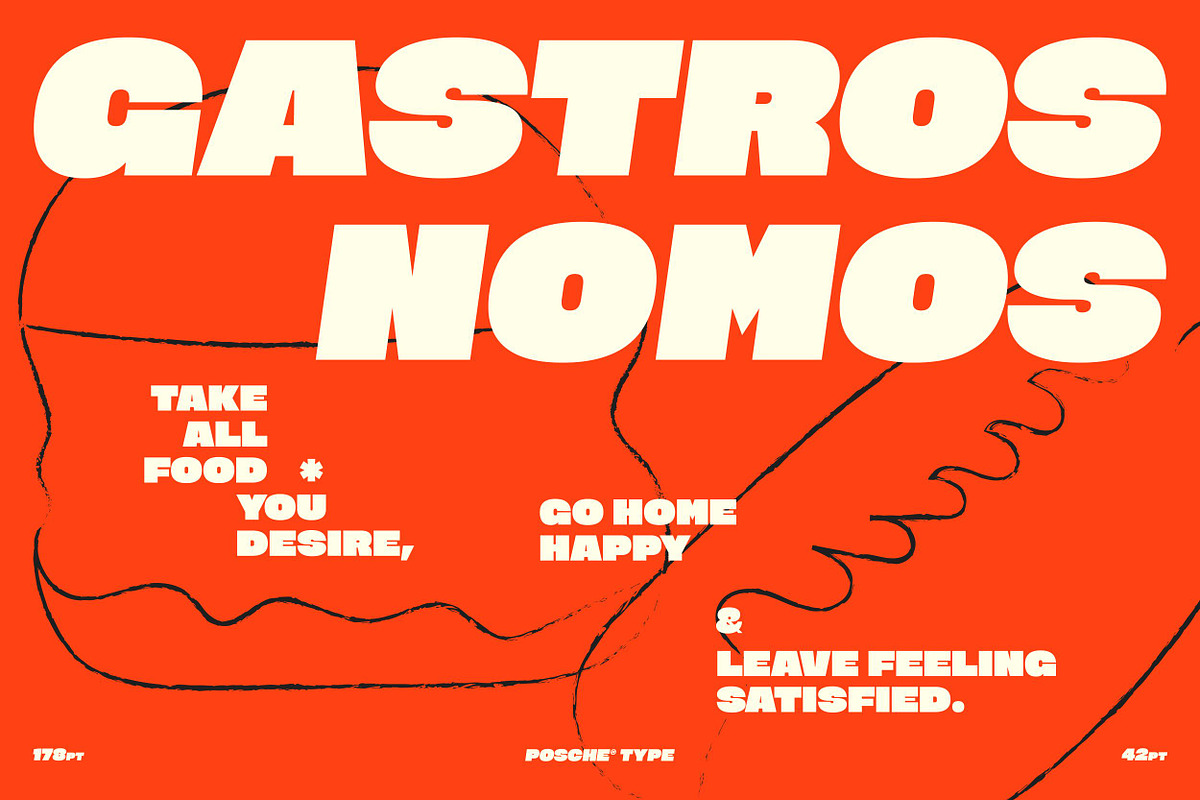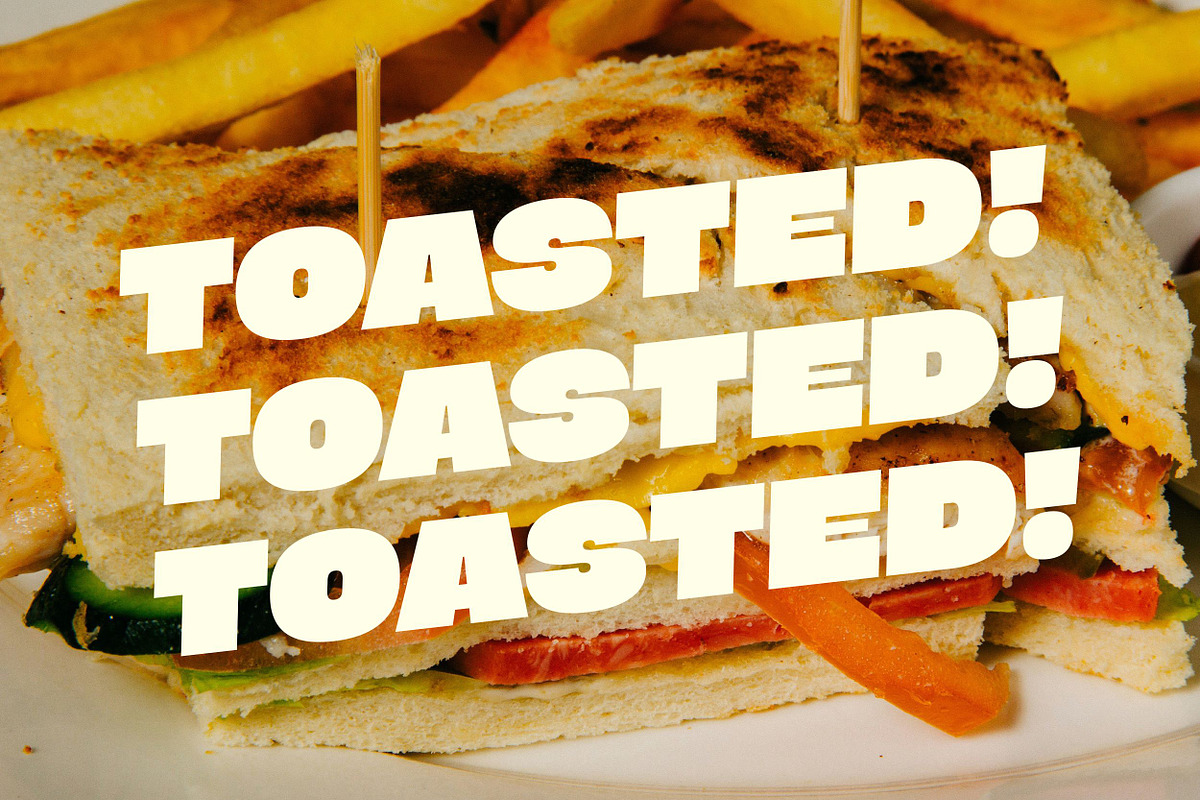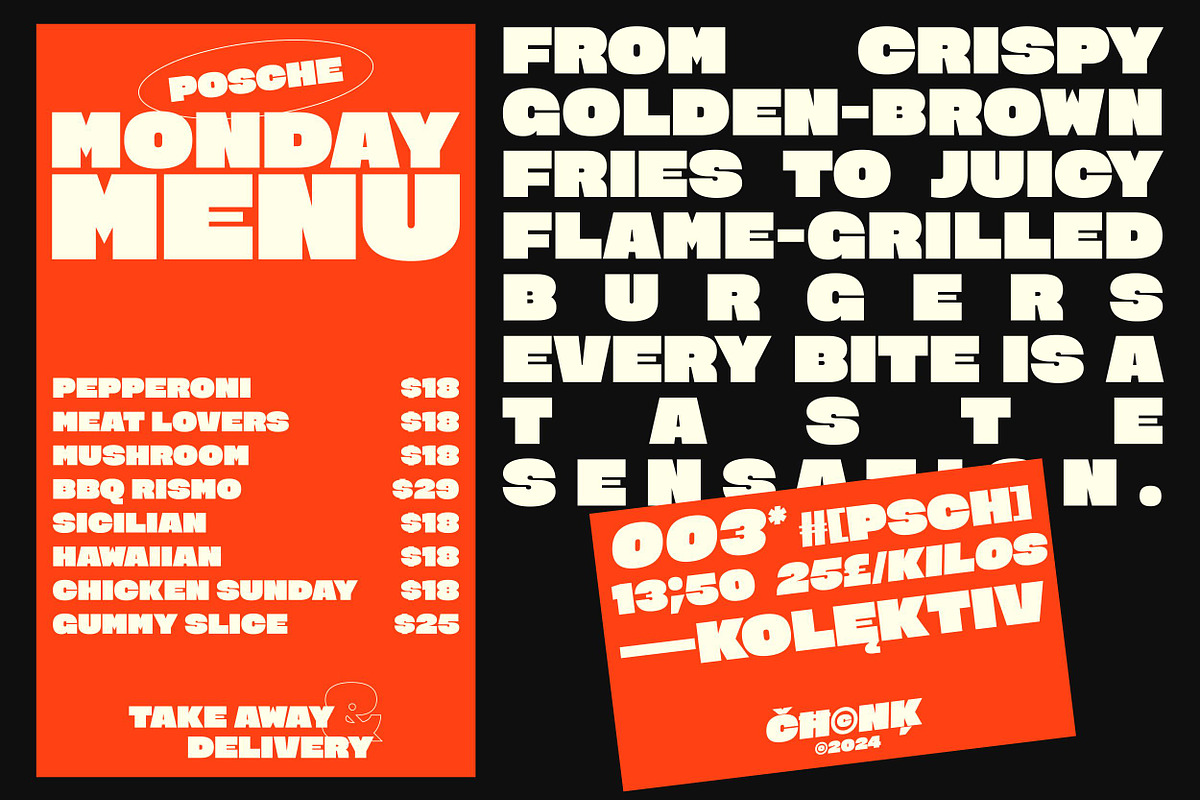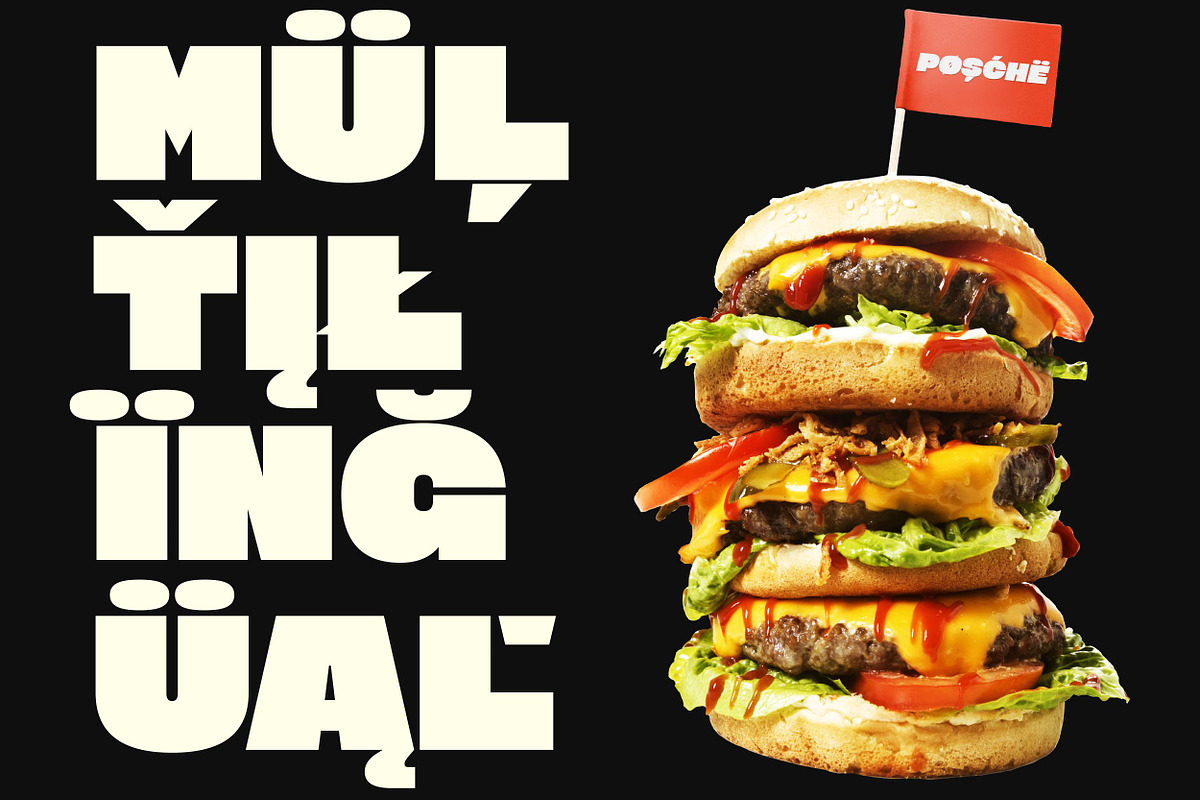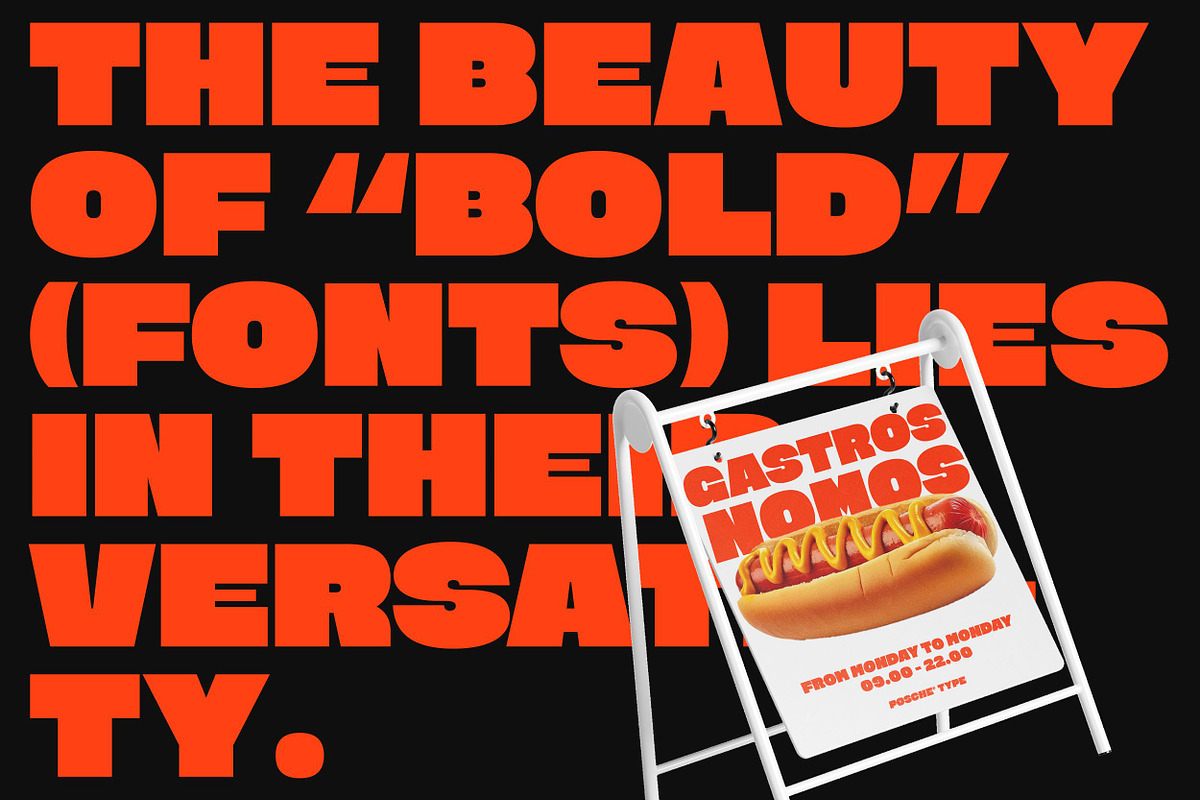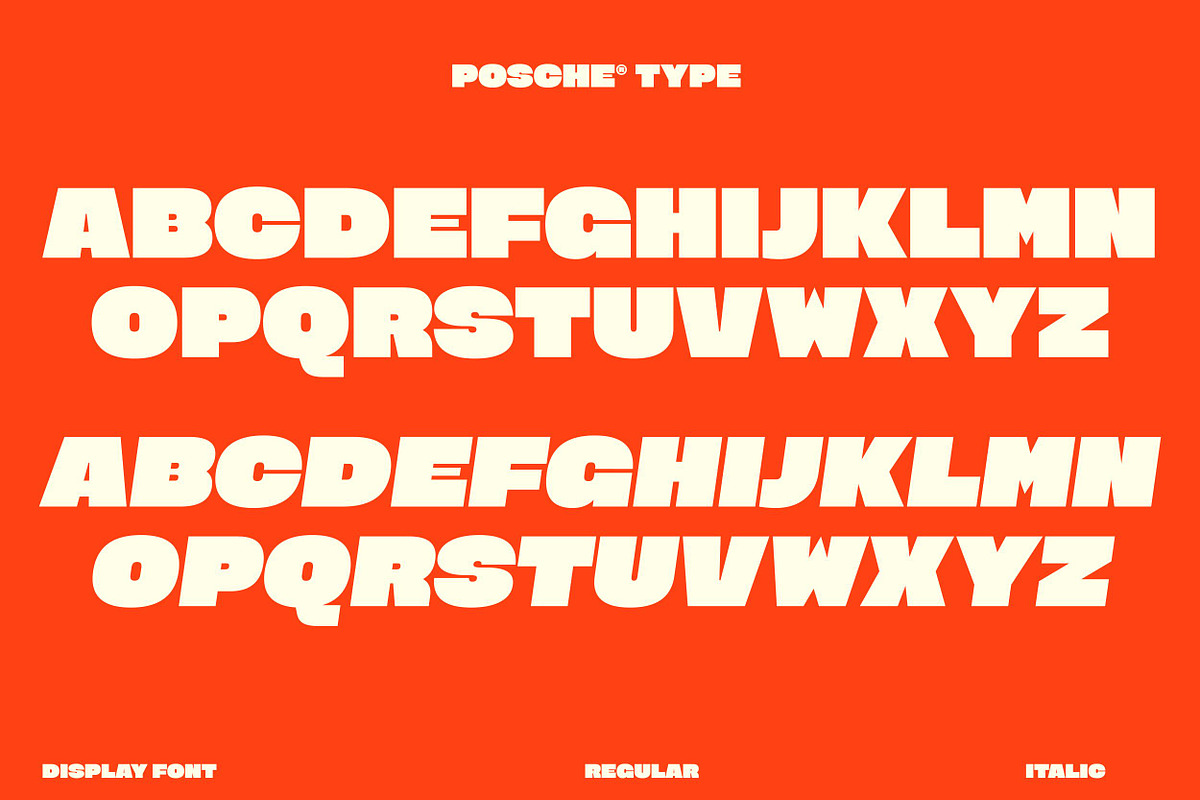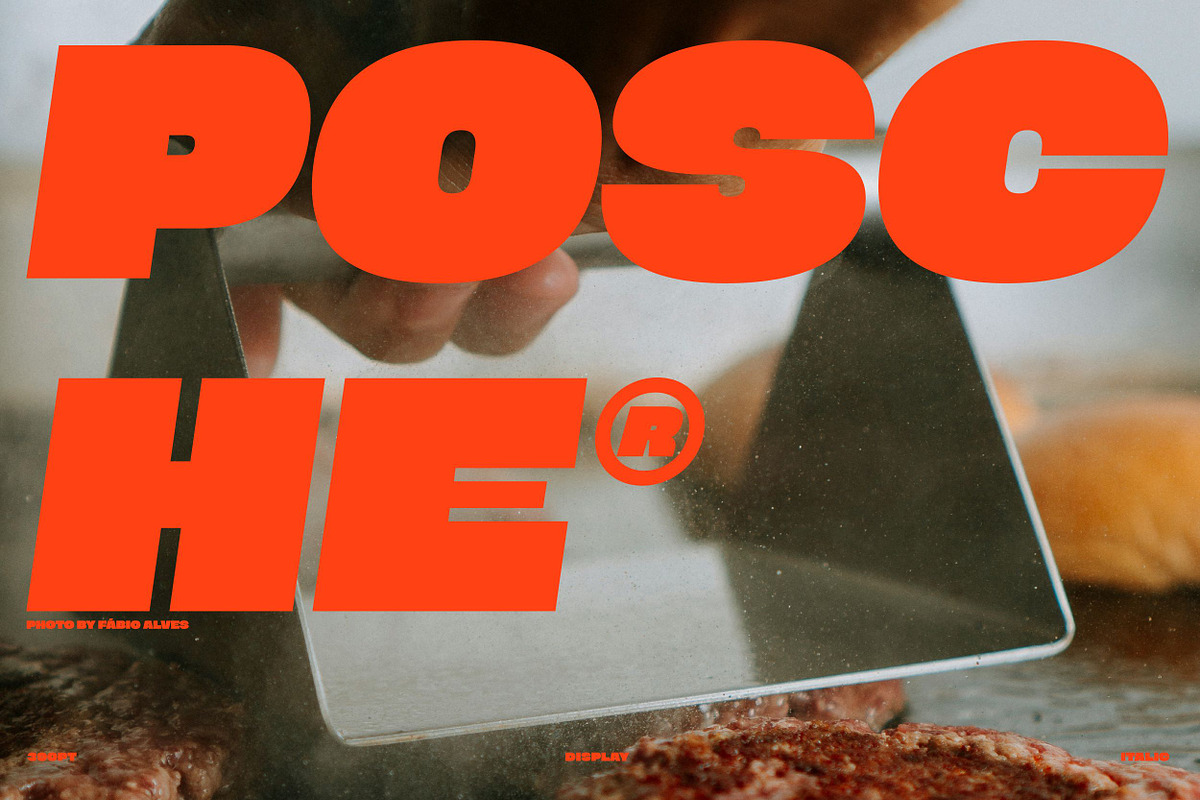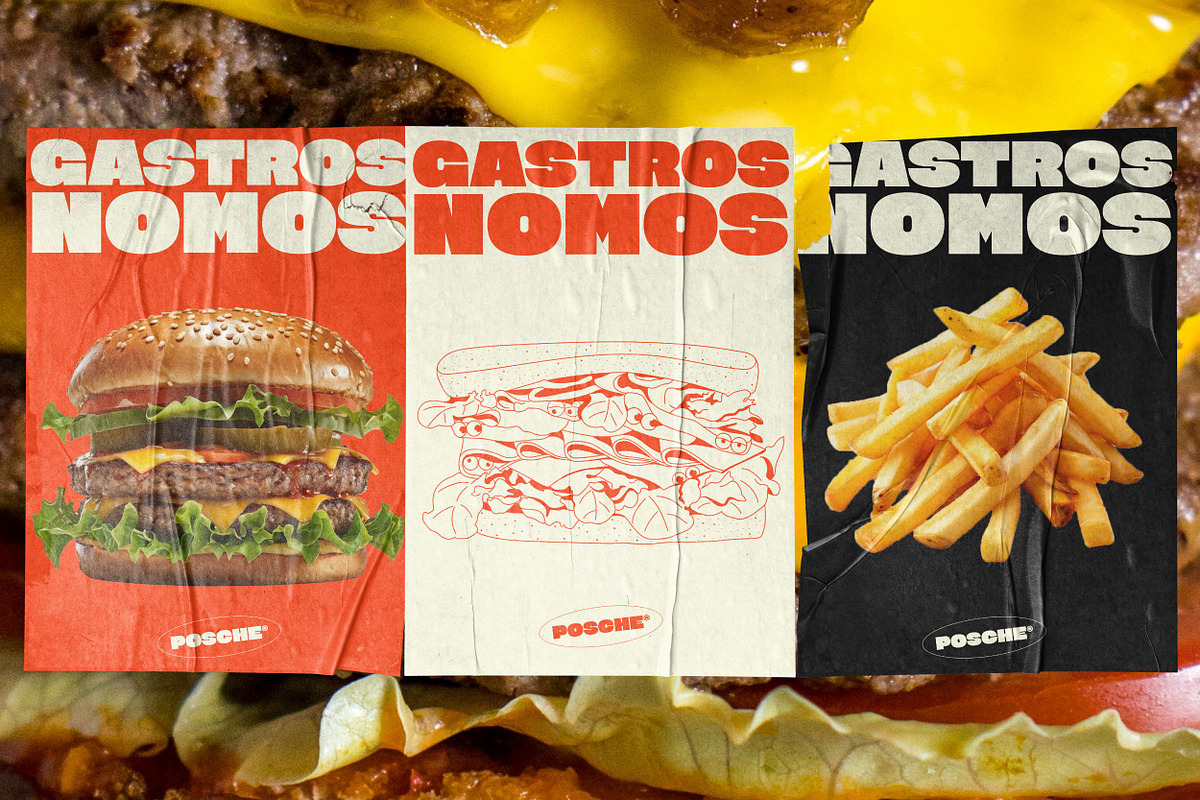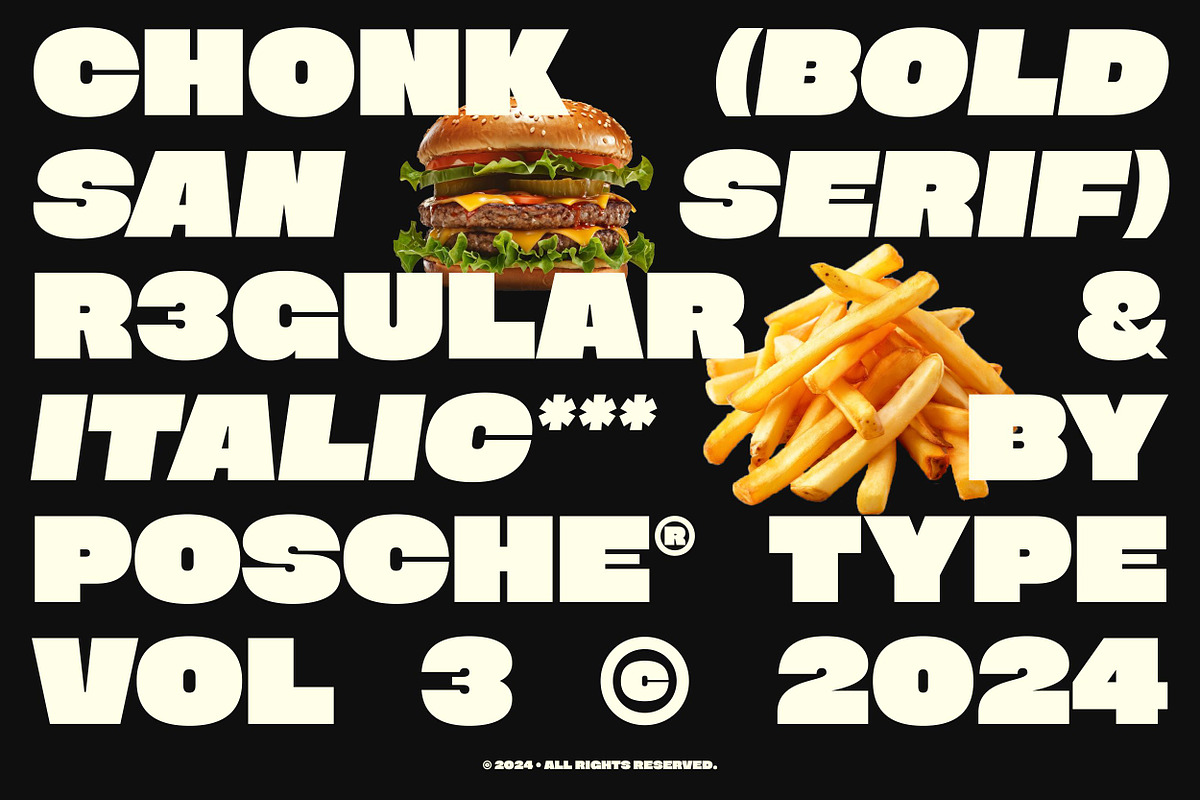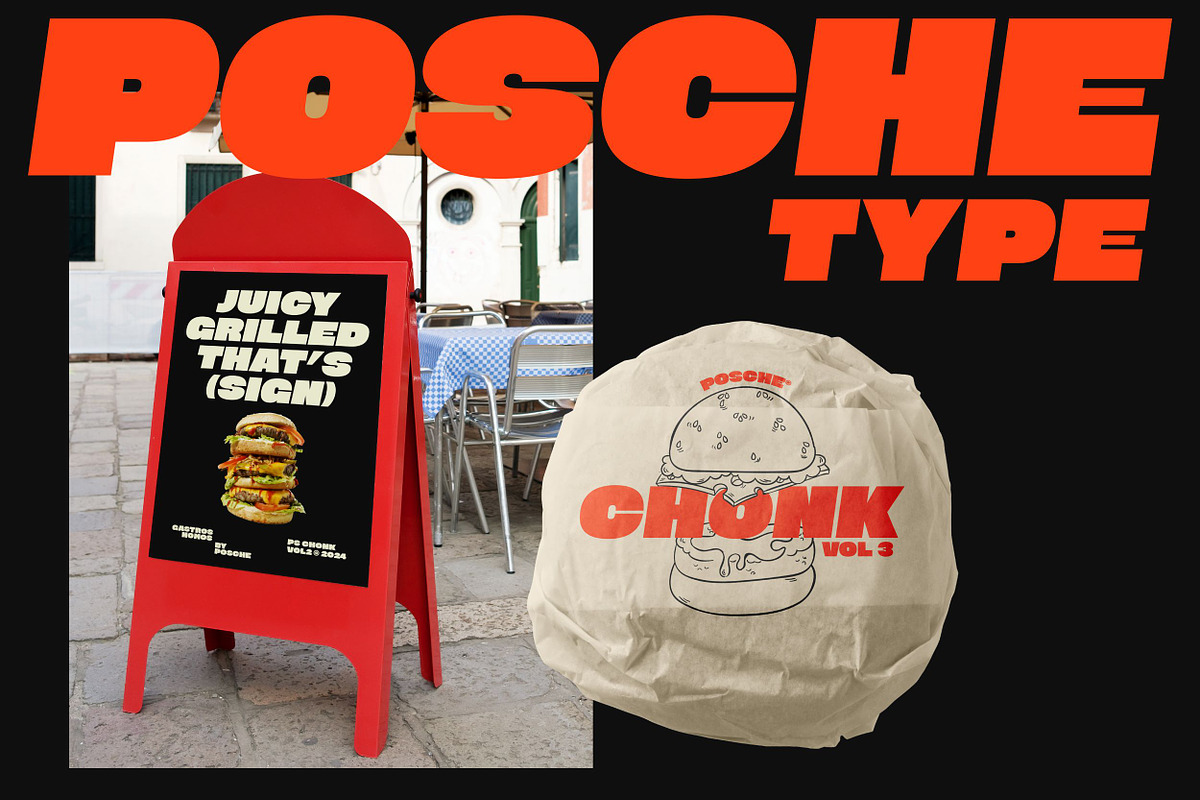
PS CHONK | Display Typeface
PS Chonk is a black all-caps sans-serif typeface. It comes in two variations: Regular and Italic.
This typeface is designed to meet all creative needs and can be easily integrated into various aspects of any branding project, from F&B, posters, packaging, social media, stationery, and more